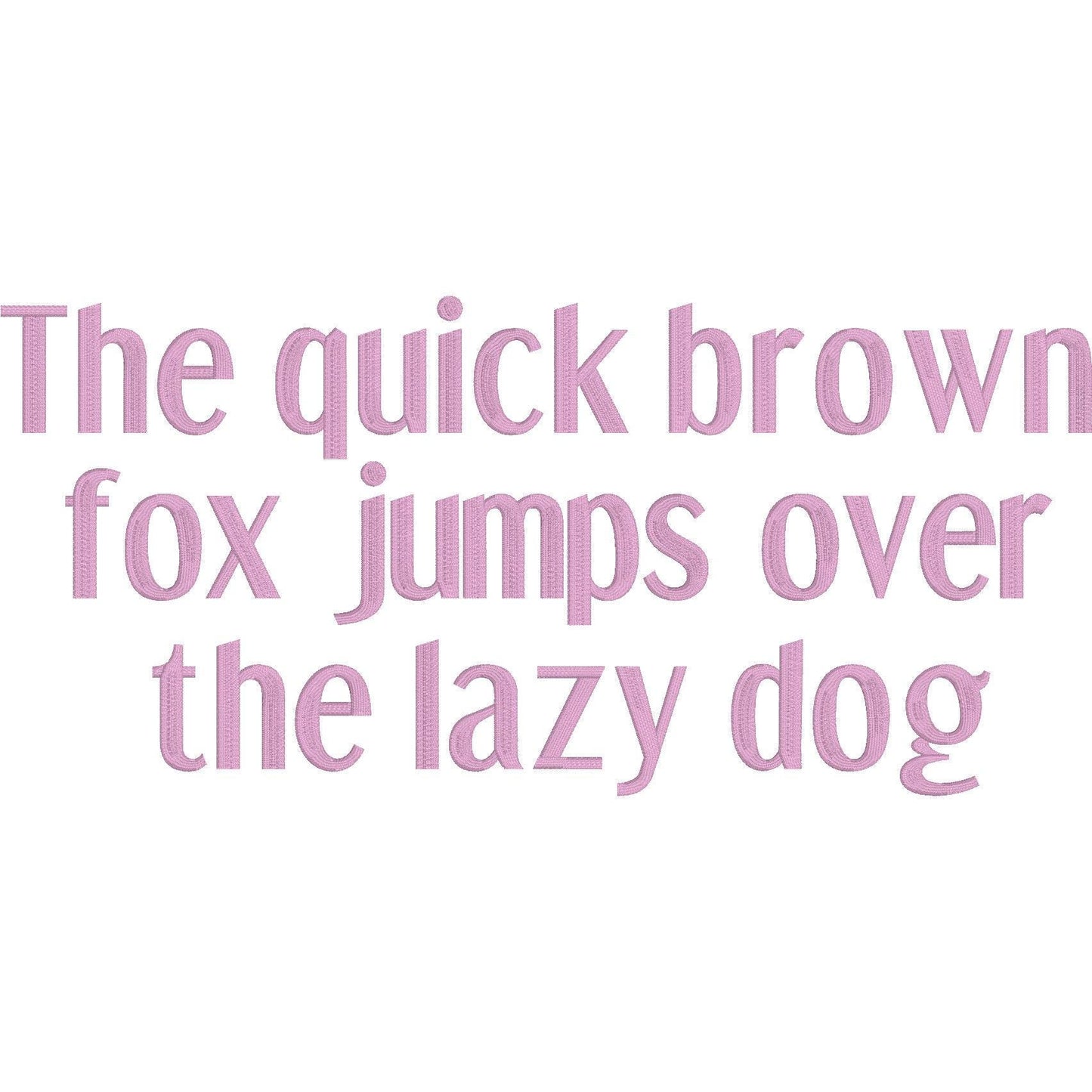
Glow 3D Puff Modern Elegant Embroidery Font
Glow 3D Puff is a Modern Elegant machine embroidery font featuring beautiful satin stitch lettering. Perfect for shirts, towels, hats, baby gifts, monograms, and small business embroidery projects.